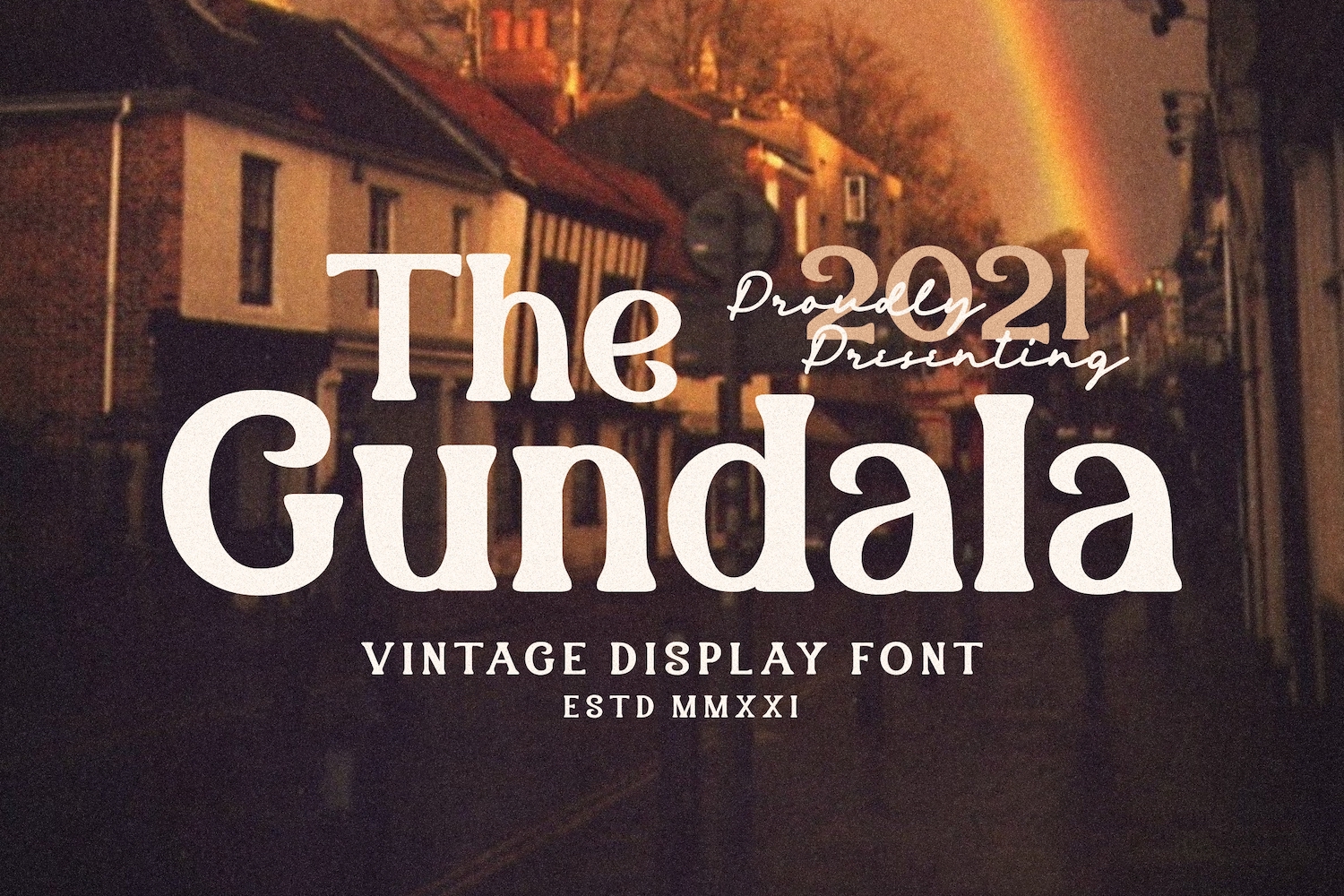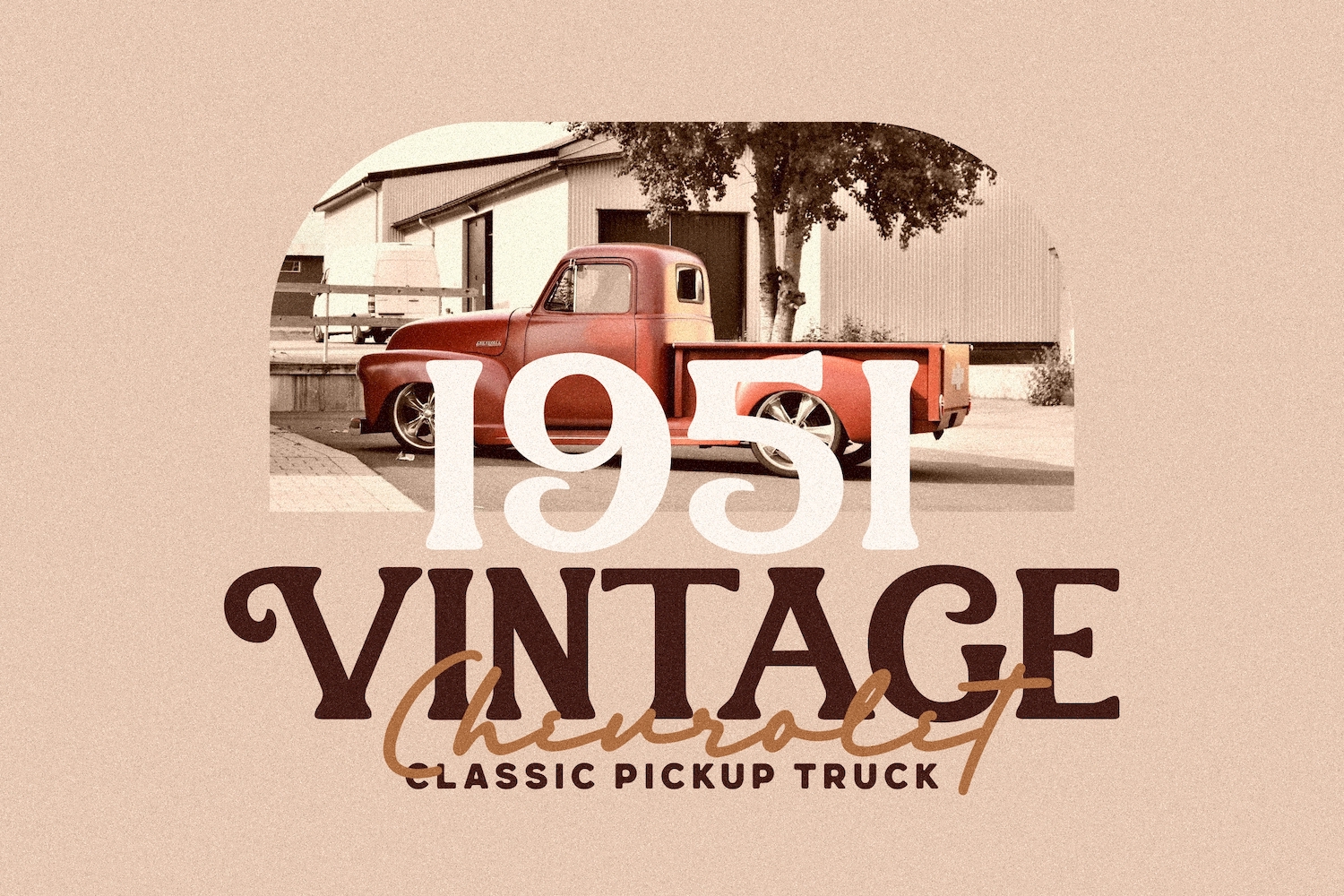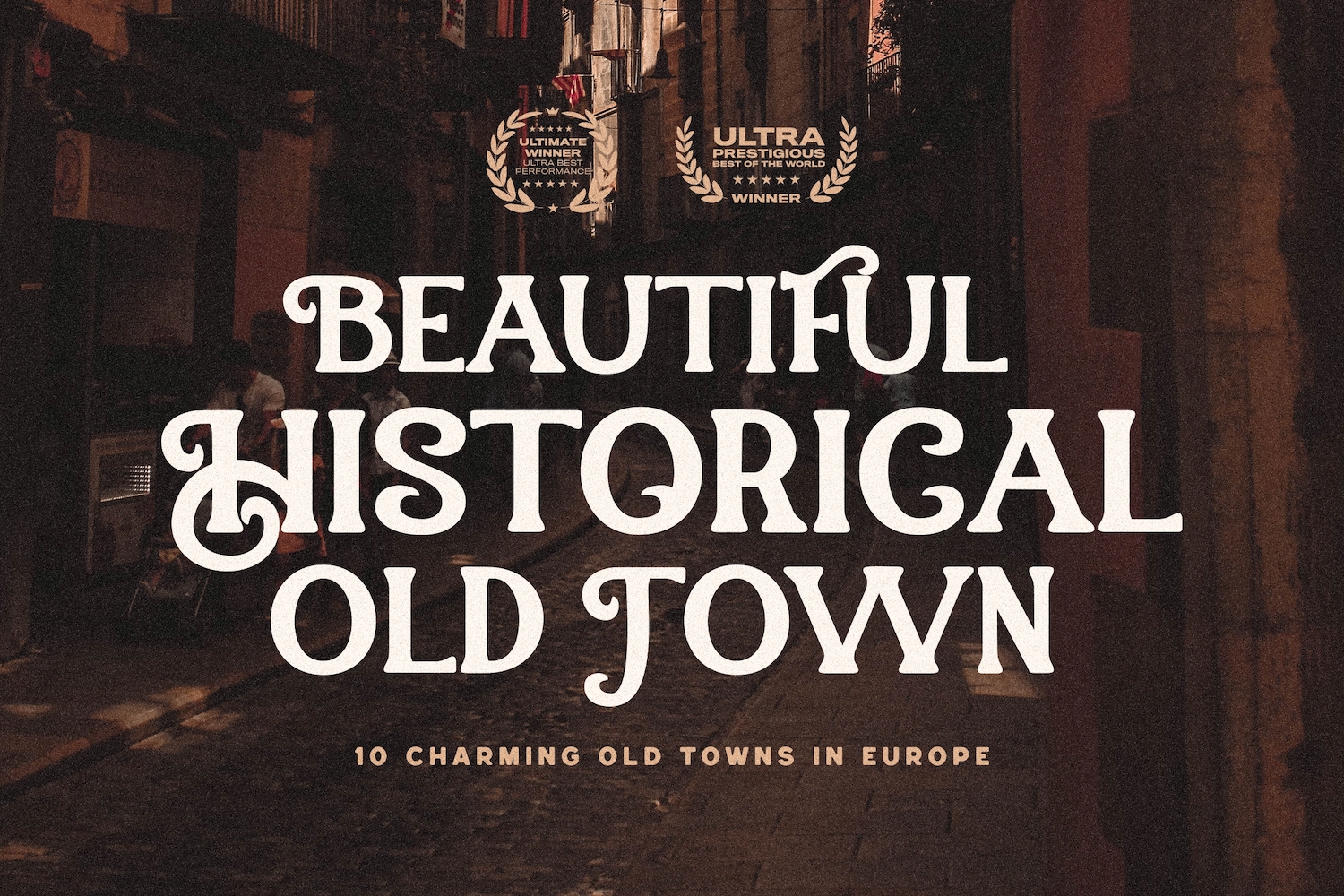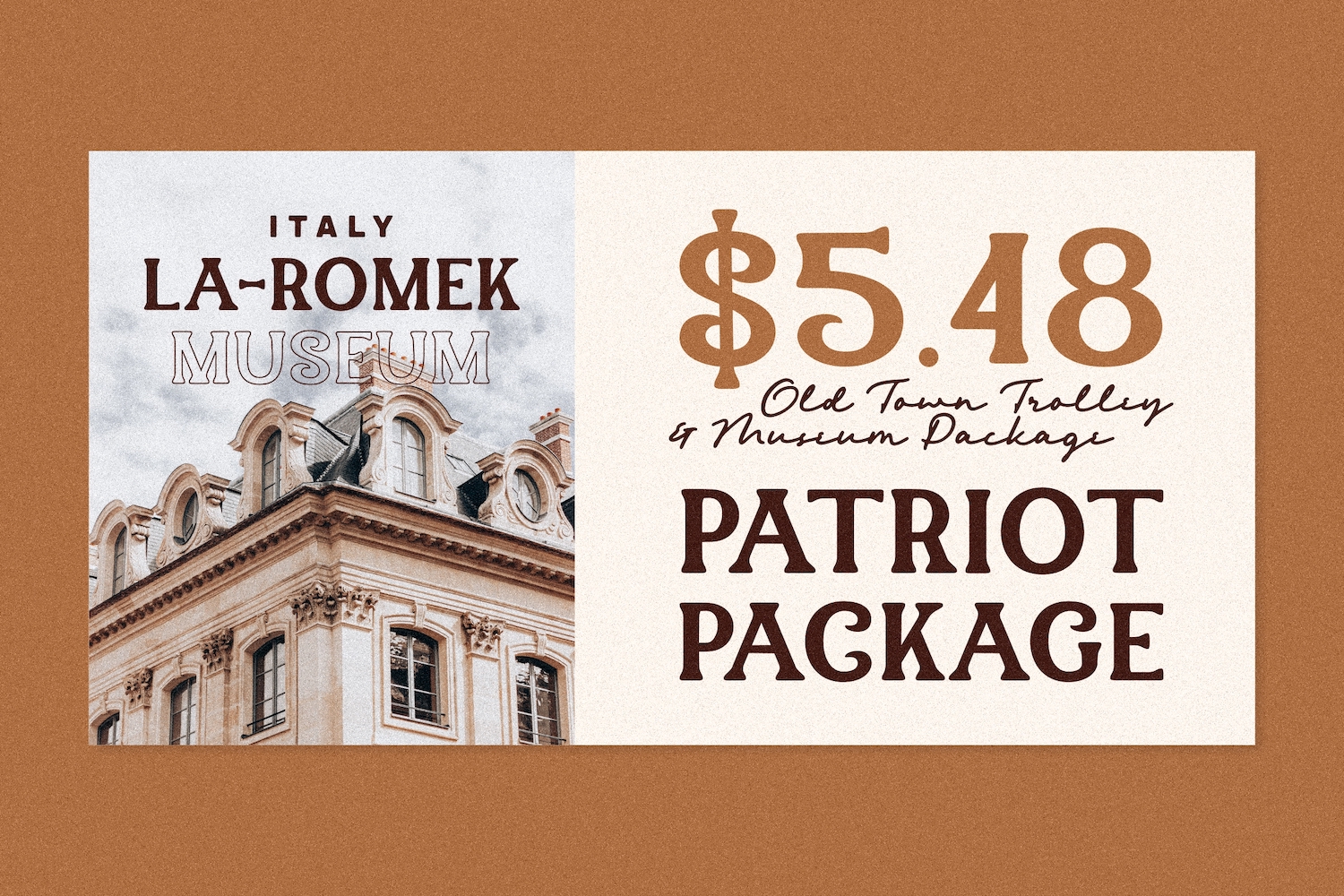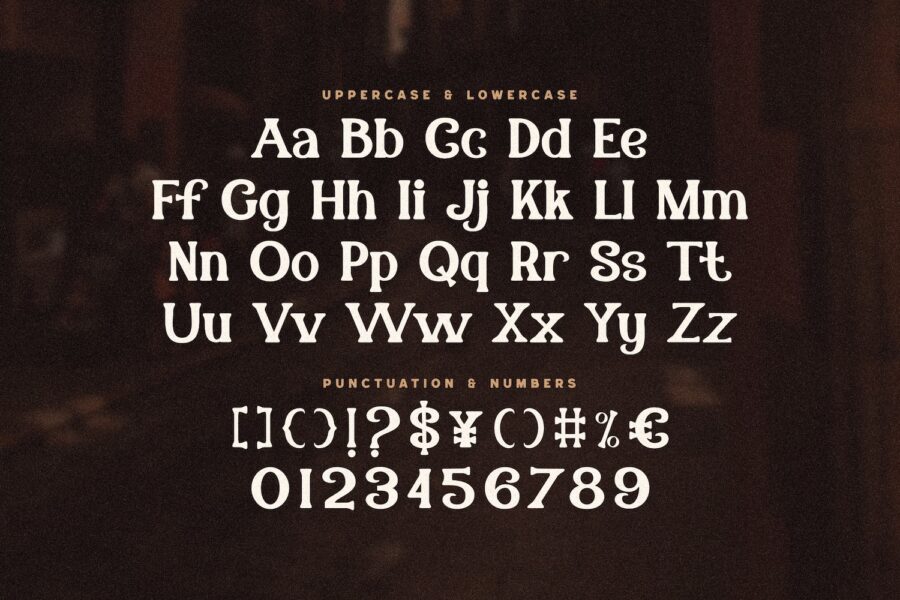
Gundala is a vintage serif display font with a nostalgic and elegant personality. It combines classic serif features with distinctive curves, offering a timeless look for editorial design, packaging, and heritage-inspired branding. Each character has a refined weight that balances modern readability with old-world charm.
This font is ideal for crafting posters, headlines, or any design that seeks an evocative, retro feel. With full uppercase, lowercase, multilingual support, numbers, and punctuation, Gundala provides versatility across creative projects. Let your designs echo history with this bold and distinguished serif typeface.
Gundala